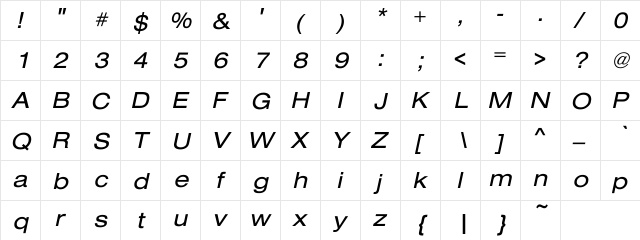
Sans Extended Oblique Regular
Design Context for Sans Extended Oblique Typeface
Sans Extended Oblique offers clean, dependable letterforms without strong stylistic allegiance, making it a practical choice for designers who need flexibility. The dynamic lean of this cut emphasises speed and emphasis in any layout.
Pro Tip: Try Sans Extended Oblique for annotation and caption copy alongside an upright companion — the contrast in angle creates a dynamic but ordered typographic system.